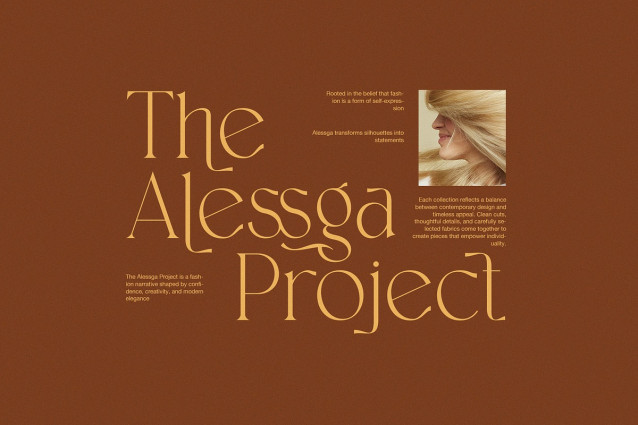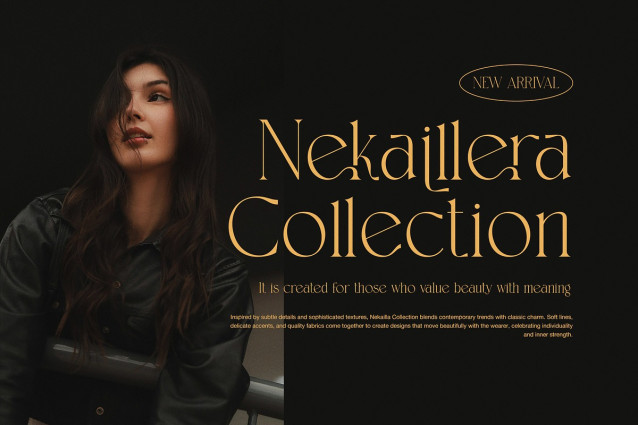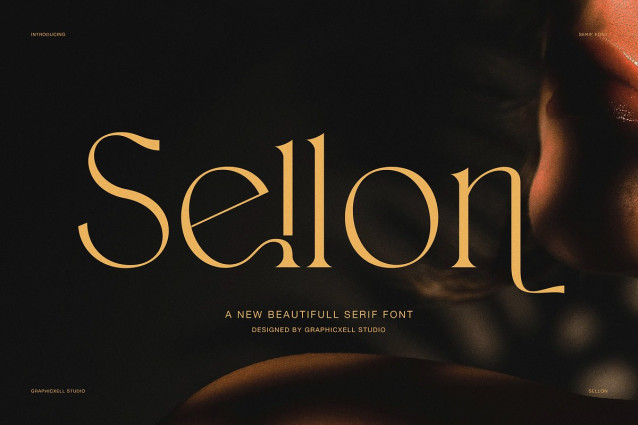
Sellon Font
Sellon Font is an elegant serif font created for designers who value balance, clarity, and quiet confidence. Moreover, it blends classic serif structure with soft modern curves, so every word feels refined and intentional. Because of this harmony, Sellon works beautifully for luxury branding, editorial layouts, and thoughtful visual storytelling.
In addition, Sellon offers subtle alternate characters that add personality without overpowering the design. Therefore, headlines and brand names feel natural and graceful. At the same time, the main letterforms remain clean and readable, even in longer text. As a result, this font performs well in both display typography and supporting content.
Furthermore, Sellon fits a wide range of premium design fields. For example, it works perfectly for interior design studios, furniture brands, fashion labels, and lifestyle magazines. It also suits beauty campaigns, hotel branding, architecture presentations, and curated social media visuals. Since the contrast stays soft and controlled, layouts feel warm, calm, and professional.